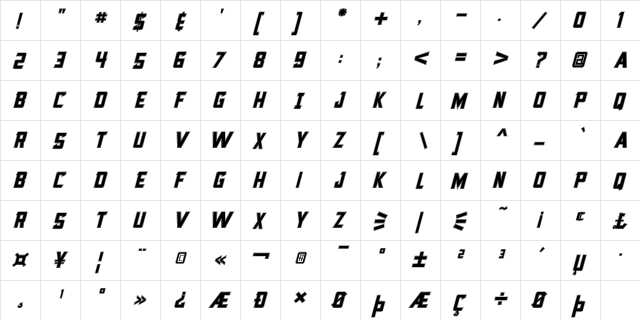
Fatcat Bold Italic Font Preview
Fatcat Bold Italic
Fatcat Bold Italic Font Details
| Foundry | Jason L. Arthur |
| Designer | Jason L. Arthur |
Design Context for Fatcat Typeface
Fatcat offers clean, dependable letterforms without strong stylistic allegiance, making it a practical choice for designers who need flexibility. The slanted form adds forward momentum and visual energy. The heavy weight commands attention and anchors typographic hierarchies.
Pro Tip: Use Fatcat for emphasis, pull quotes, and subheadings where its slanted energy can add rhythm to the layout.